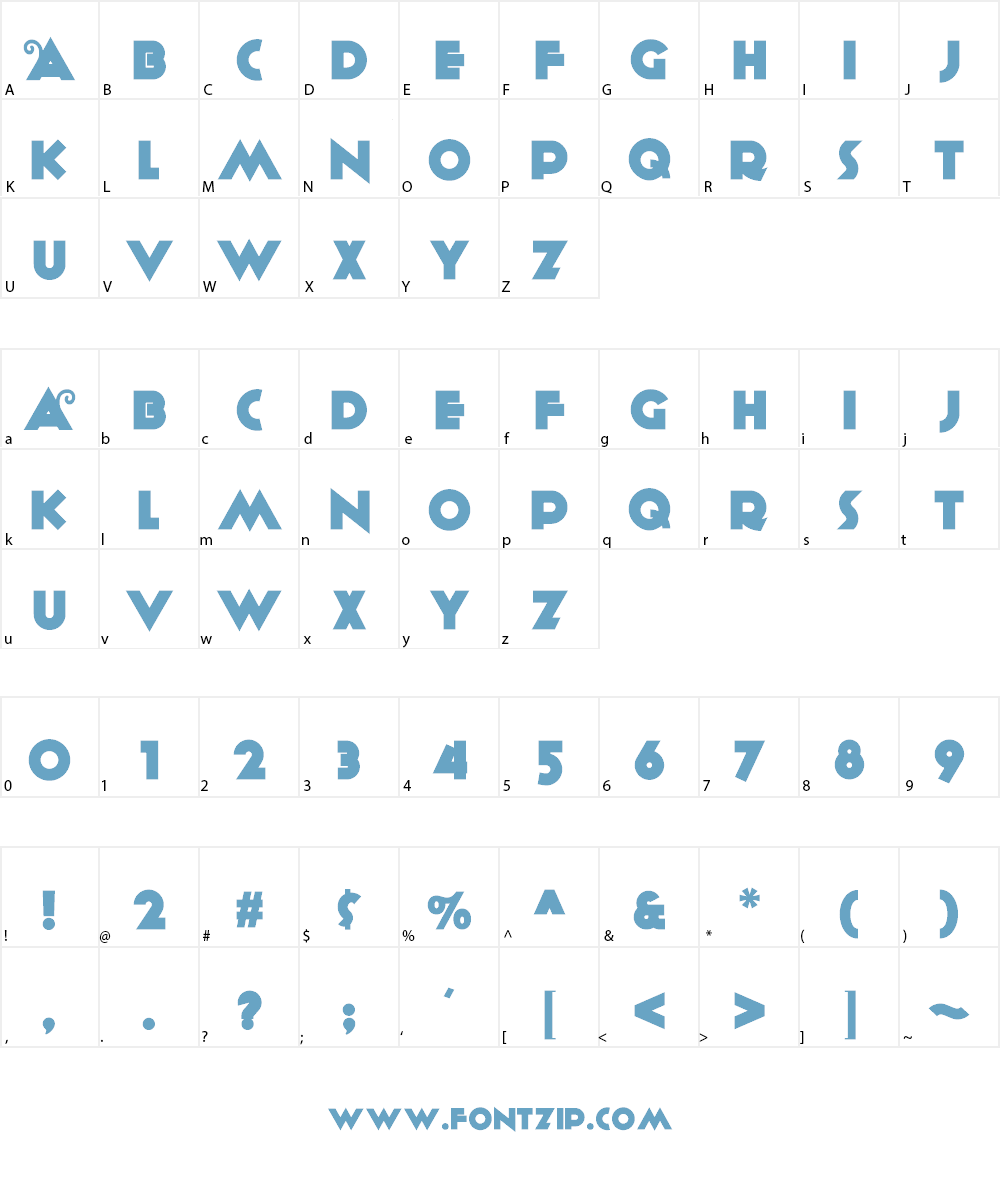
This font is based on lettering encountered on a 1928 poster for a British steamship line by British designer Austin Cooper.Big, bold, rollicking fun. The name of the font has no special significance — I chose it simply to highlight some of the font’s delightful eccentricities.